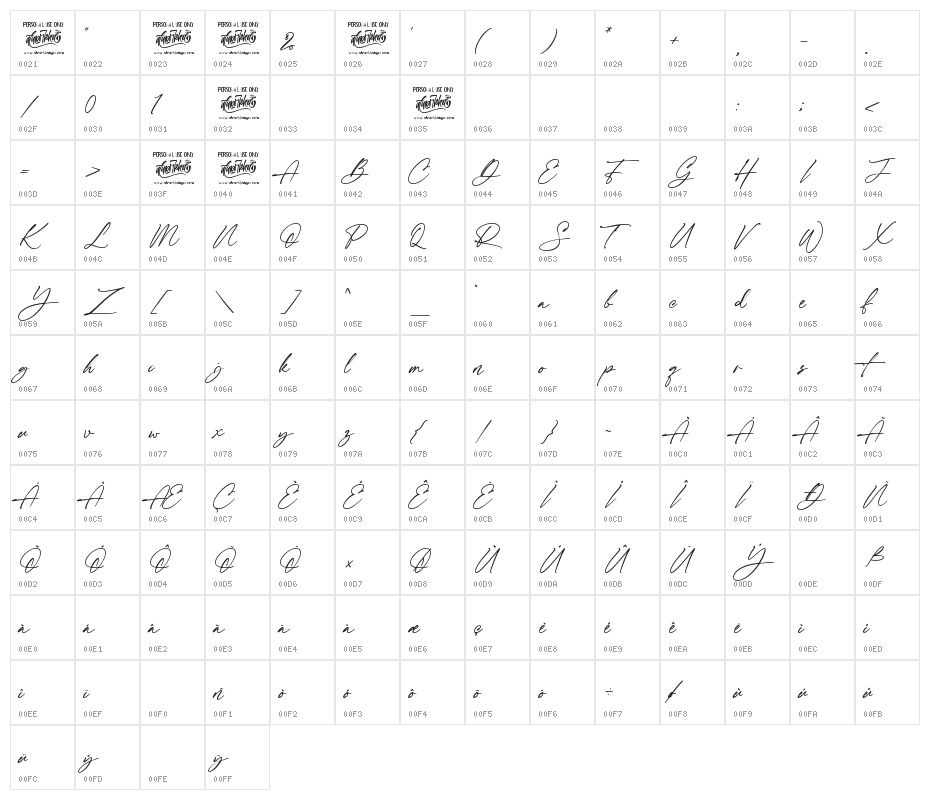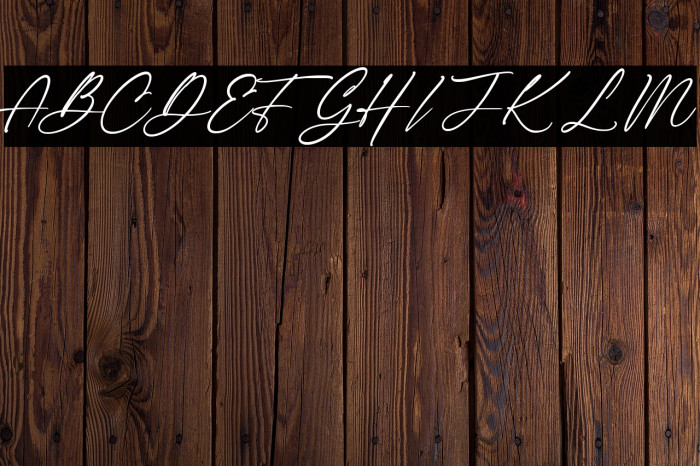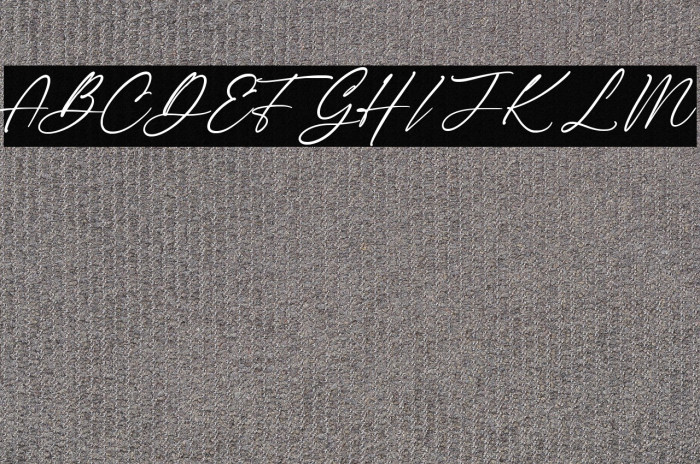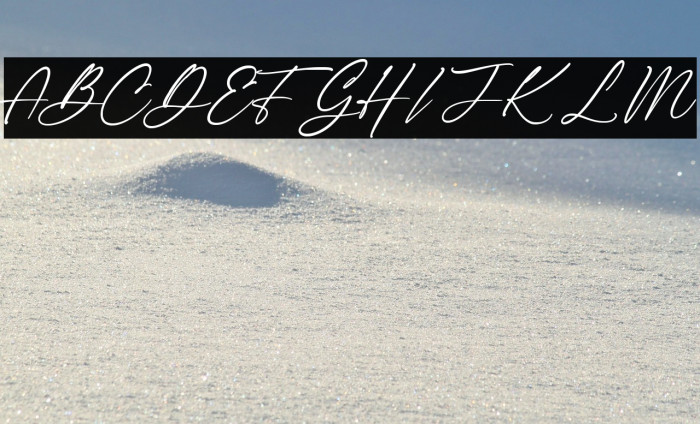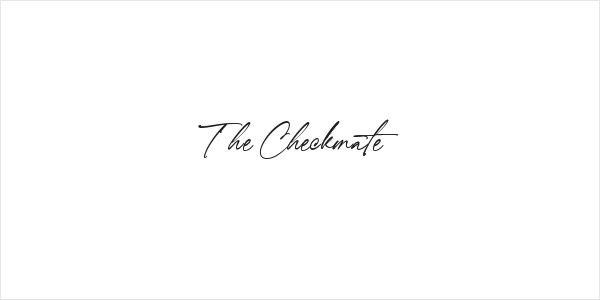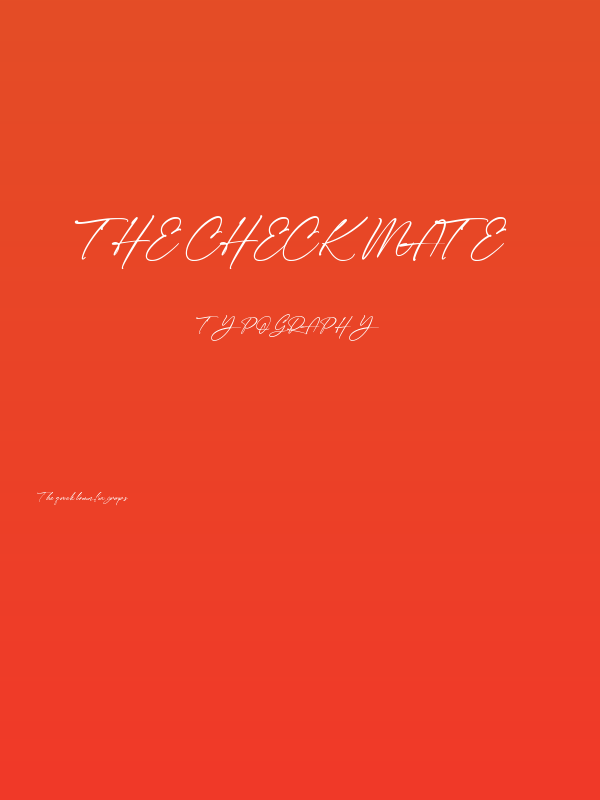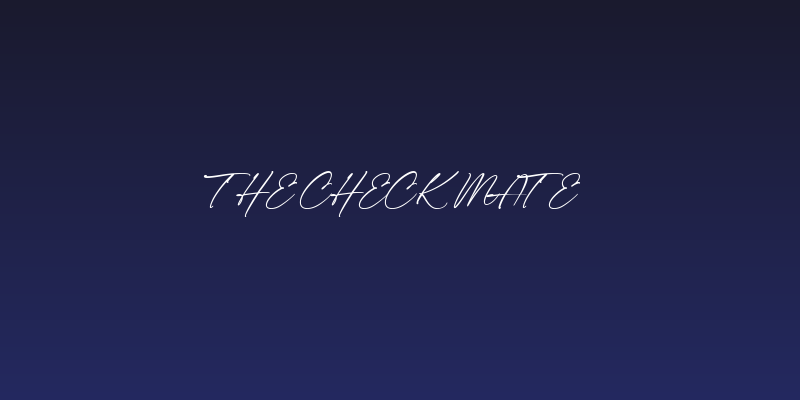
The Checkmate Font
The Checkmate Description
This font features an elegant and flowing script style, characterized by its smooth, cursive strokes and graceful curves. The uppercase letters exhibit a sophisticated flair with elongated lines and subtle loops, while the lowercase letters maintain a consistent fluidity, enhancing its handwritten appeal. The numerals are designed with a similar cursive touch, ensuring a cohesive look throughout. Special characters are thoughtfully integrated, maintaining the font's overall aesthetic. This font exudes a sense of elegance and personal touch, making it suitable for projects that require a stylish and refined appearance.
| Overall Style | Elegant, Handwritten |
| Use Case | Logos, Invitations, Personal Branding |
| Proposed Projects | Ideal for wedding invitations, greeting cards, personal branding, and elegant logos. |